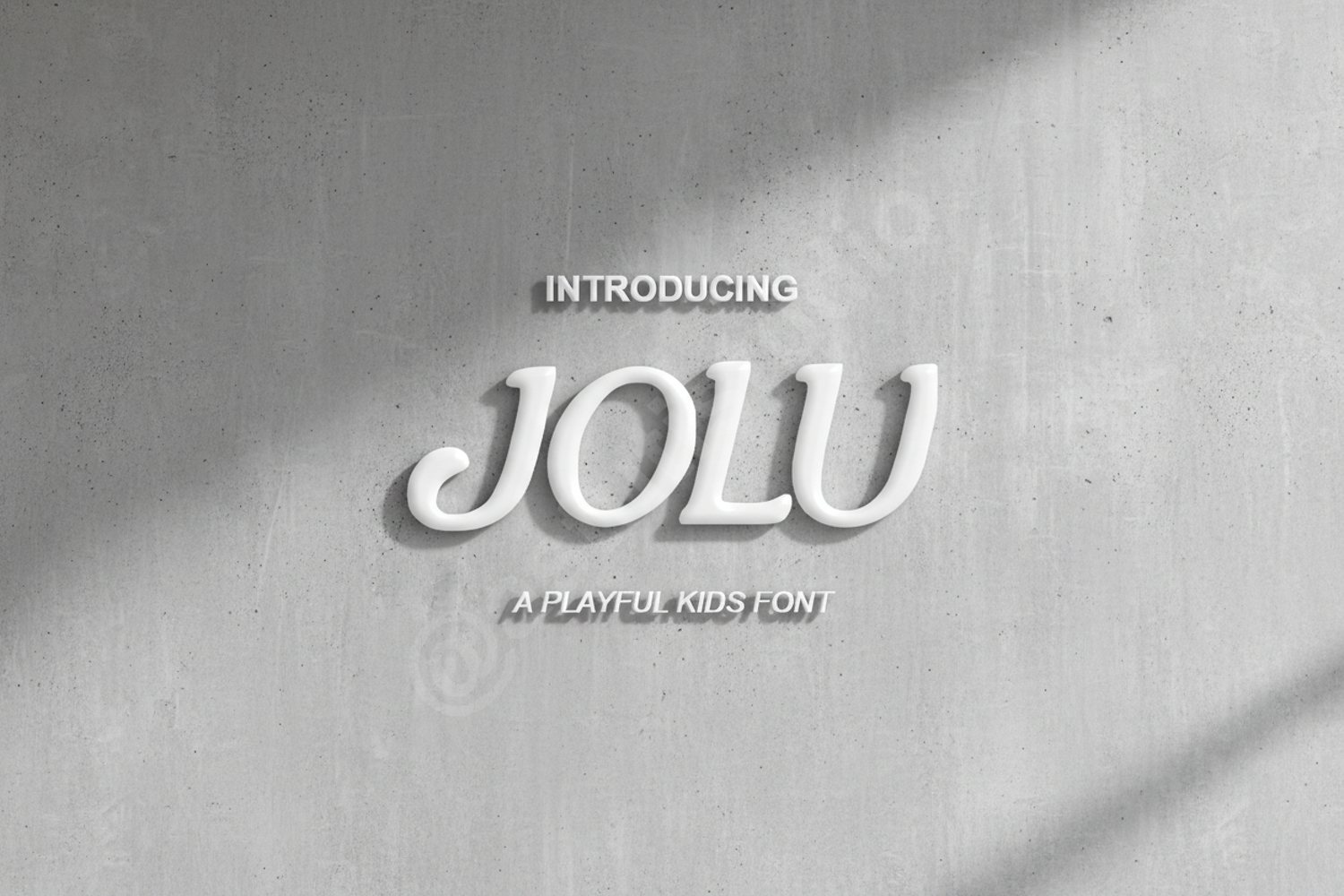
Jolu - Modern Minimalist Sans Serif Font
Jolu
Introduction:
Elevate your design projects with Jolu, a premium sans serif font designed for clarity and sophistication. Jolu balances modern geometric precision with a clean, approachable aesthetic, making it an essential addition to any designer's toolkit. Whether you are working on a high-end corporate identity or a minimalist lifestyle brand, Jolu provides the versatility needed to stand out in a crowded market.
- Standard English character set
- Numerals and Punctuation
- Multilingual support for global accessibility
Optimized Use Cases:
- Branding and Identity: Create memorable logos and professional business cards with ease.
- Editorial Design: Perfect for clean magazine layouts, book covers, and body text.
- Digital Marketing: Optimized for high readability in web headers and social media graphics.
- Packaging: Adds a touch of modern luxury and clarity to product labels and retail boxes.